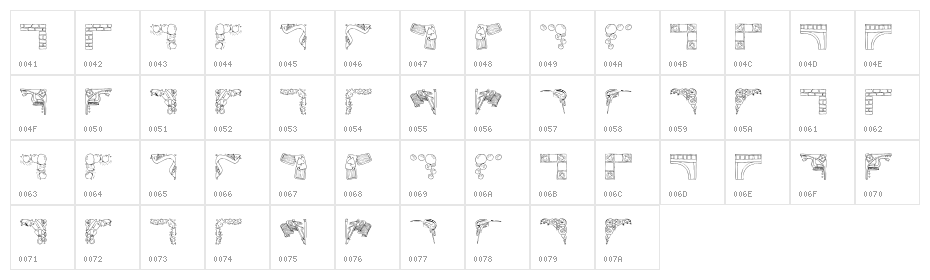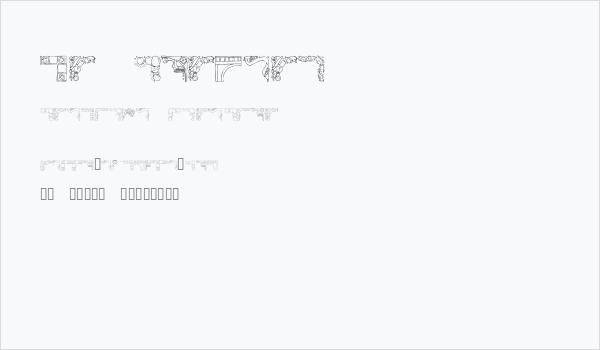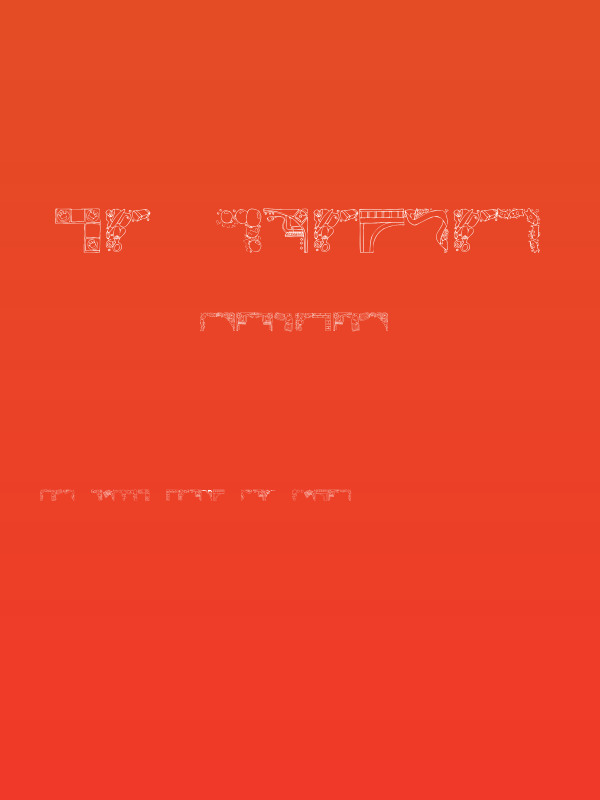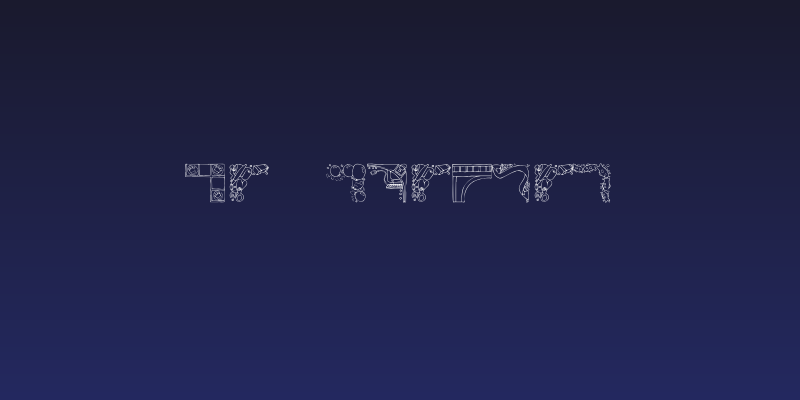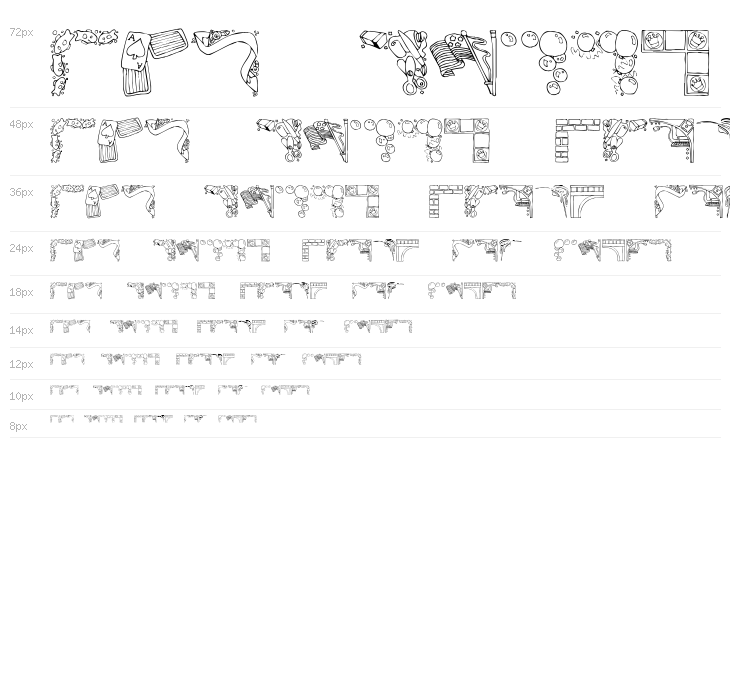
KR Corners Font
KR Corners Description
This collection features a variety of decorative corner designs, each with its own unique flair. The designs range from intricate floral patterns to geometric shapes and architectural elements. Each corner is meticulously crafted, showcasing detailed line work and artistic embellishments. The styles vary from classic and ornate to more modern and minimalistic, providing a versatile selection for different design needs. These corners can be used to enhance the visual appeal of documents, invitations, or any project requiring a touch of elegance and sophistication.
| Use Case | Decorative borders, Invitations, Certificates |
| Proposed Projects | Ideal for enhancing invitations, certificates, scrapbooks, and decorative borders in digital or print media. |